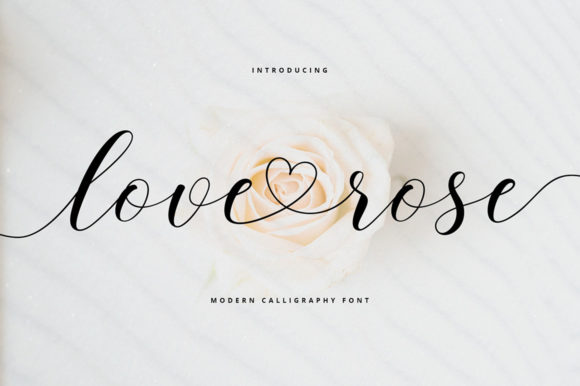
Introducing Love Rose Font, the ultimate script font that will take your design projects to a whole new level of elegance and sophistication. Created by gatype, this beautiful light handwritten font is designed to captivate and inspire, leaving a lasting impression on anyone who lays eyes on it.
With its unique feel and stunning impact, Love Rose Font is the perfect choice for those seeking the best font for display ads. Its delicate strokes and graceful curves exude a sense of luxury, instantly elevating any design to a realm of unparalleled beauty.
But what sets Love Rose Font apart from the rest? Its PUA encoding allows for seamless access to a wide range of amazing glyphs and ligatures, making it incredibly versatile and easy to work with. Whether you're creating a logo, a wedding invitation, or a social media post, this font has got you covered.
Imagine the impact Love Rose Font will have on your next project. The flowing lines and intricate details will effortlessly capture attention and evoke a sense of emotion. From romantic wedding stationery to high-end branding, this font is a powerful tool that will make your design stand out from the crowd.
Don't settle for ordinary fonts when you can have the extraordinary. Love Rose Font is the epitome of elegance and style, carefully crafted to bring your visions to life. Let your creativity soar with this font and watch as it transforms your designs into works of art.